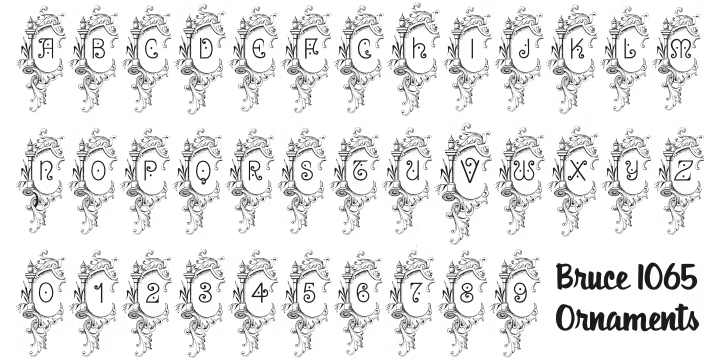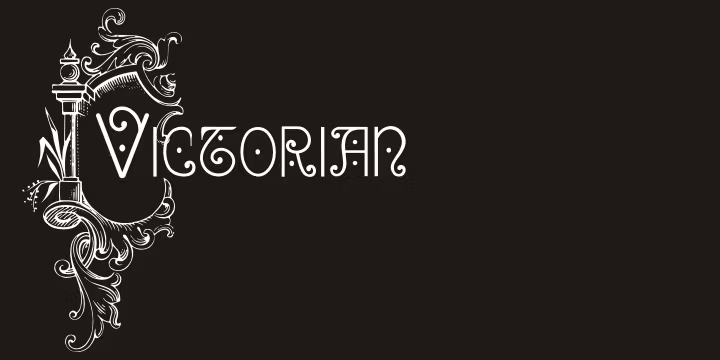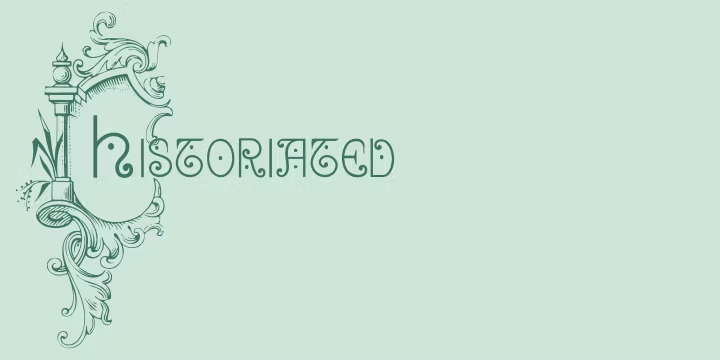
Bruce 1065
Bruce 1065 is a digitization of the 1065 font from Bruce's and Sons Typefoundry, from victorian times, in America.
Bruce 1065 Soft Serifs
Bruce 1065 Ornamental